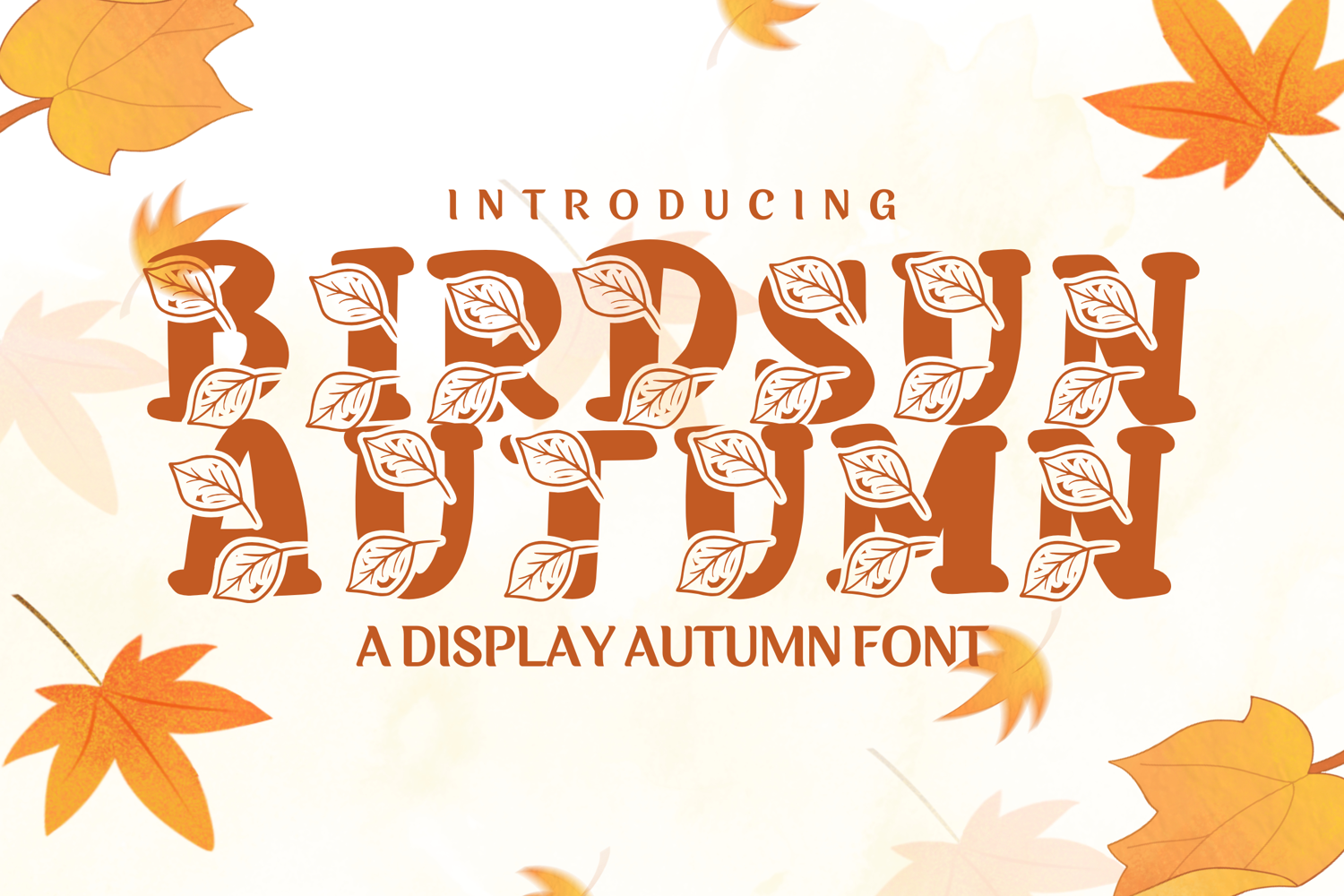
Birdsun Autumn - A Cozy Whimsical Display Font
Birdsun Autumn
Bring the warm charm of fall to your designs with Birdsun Autumn, a lovely handwritten script font inspired by crisp leaves, cozy moments, and rustic beauty. With its flowing curves and soft strokes, Birdsun Autumn adds a natural elegance to everything from branding to seasonal crafts.
Whether you're creating Thanksgiving menus, wedding stationery, or fall-themed social posts, this font captures the essence of the season with grace and charm.
🍁 Ideal For:
• Fall quotes & harvest signs
• Invitations & greeting cards
• Logos & rustic branding
• Scrapbooking & seasonal crafts
• Blog headers, posters, and more!